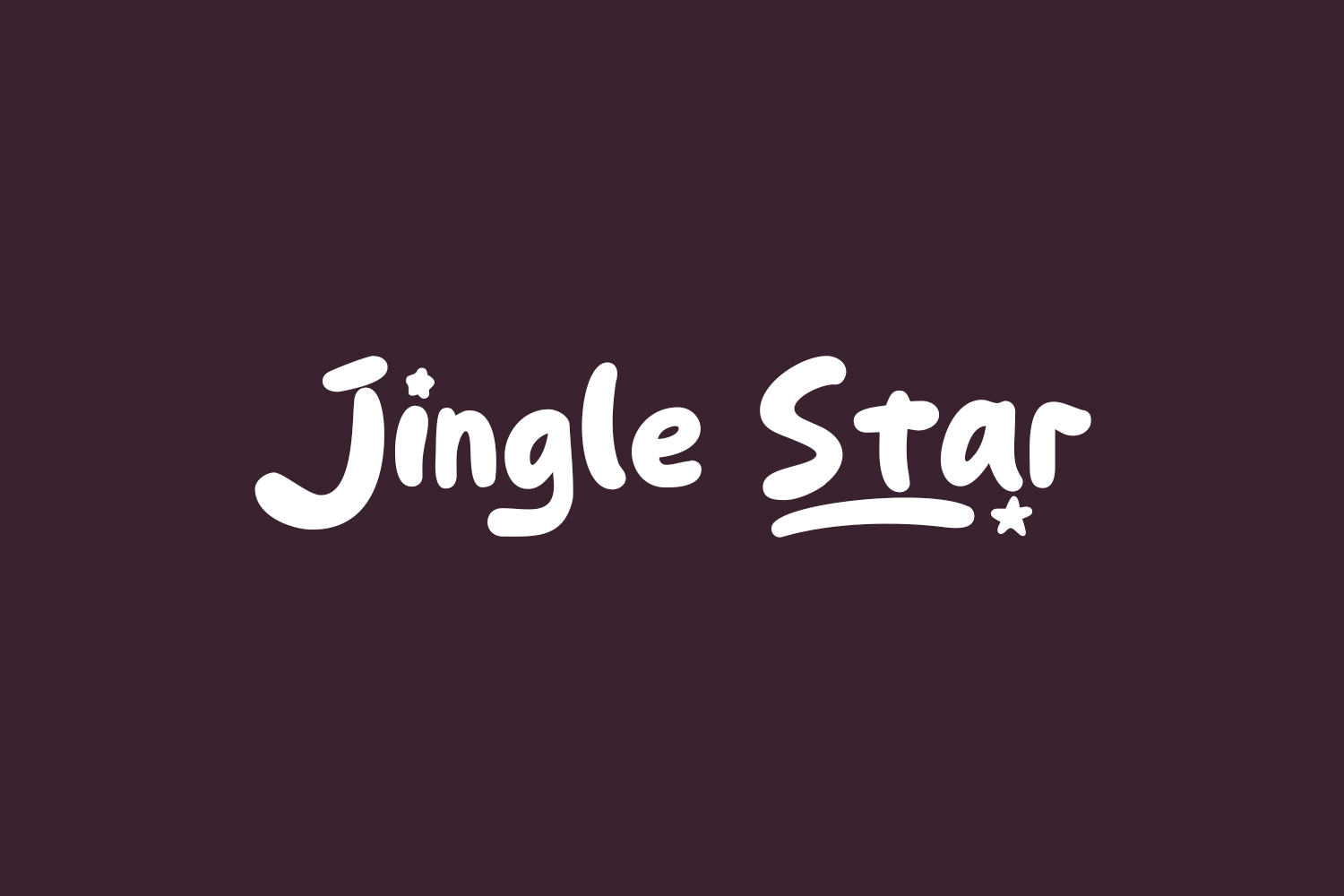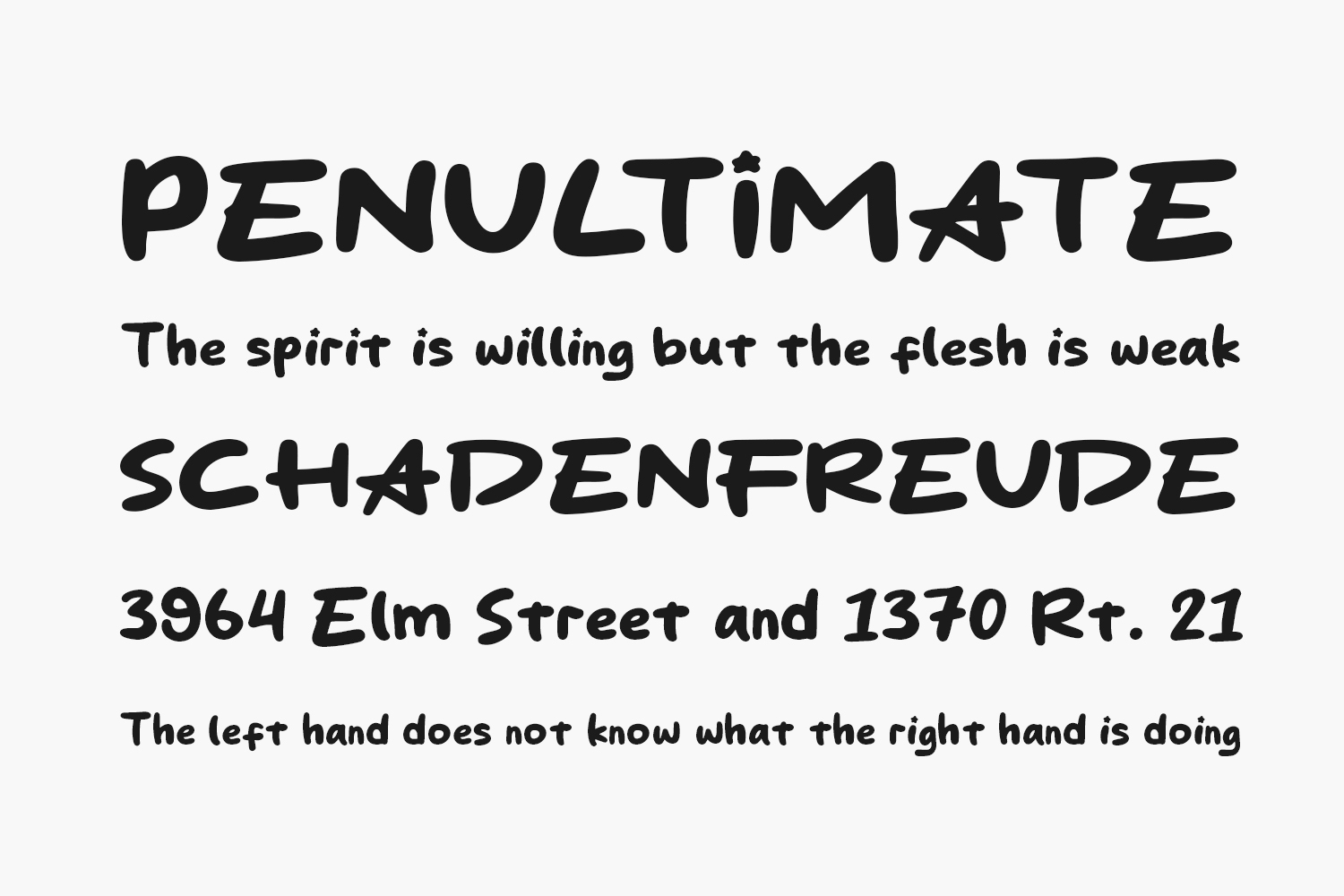
Introducing Jingle Star Free Font, the epitome of modern and sophisticated handwritten fonts, tailor-made for enhancing your posters, logos, magazines, book covers, banners, and beyond! Unleash the potential of this remarkable font to craft enchanting designs that captivate the eyes. Its versatility seamlessly integrates with an extensive array of projects, giving your creative ideas the edge they deserve. Embrace Jingle Star and witness your designs stand out like never before! Grab this amazing font now and elevate your artistic endeavors to new heights. Jingle Star Free Font is free for personal use only. Please purchase the full version for commercial use.